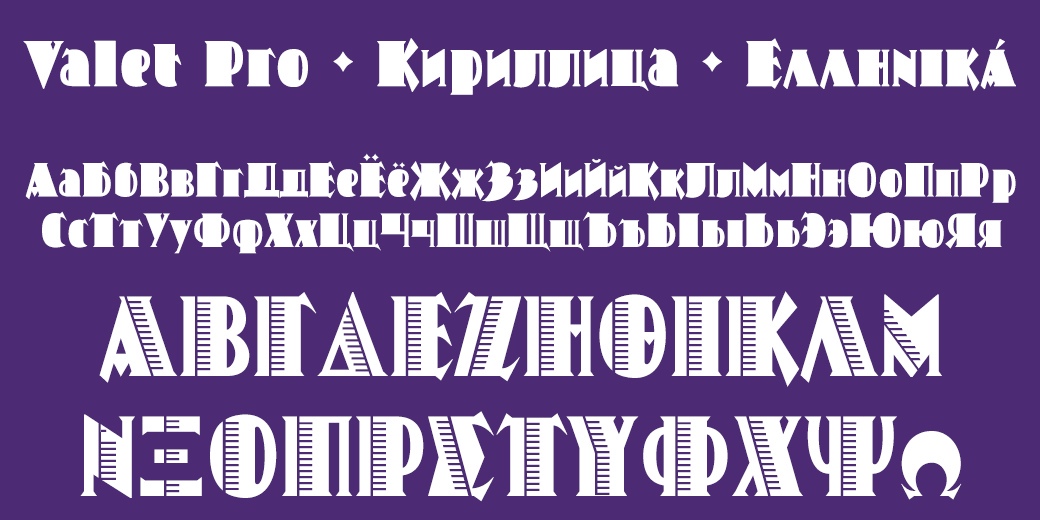
Valet Pro Font
Valet Pro Font is perfect for luxury hotel branding, upscale service company logos, premium hospitality marketing, concierge service signage, five-star restaurant menus, high-end automotive dealership materials, exclusive club memberships, professional service presentations, boutique business cards, and sophisticated corporate communications.
Valet Pro Font creates excitement because it embodies professional excellence and refined service quality through its polished letterforms and sophisticated character structure. The font's elegant design instantly communicates trustworthiness and premium service standards, making any brand appear established and reliable. Its carefully balanced proportions and refined details create an atmosphere of exclusivity and attention to detail that resonates with discerning clientele who expect superior service experiences.
This distinguished typeface represents the pinnacle of professional typography for service-oriented businesses. Valet Pro Font Free Download offers entrepreneurs and established companies access to premium-quality letterforms that convey competence and reliability. The font's clean lines and professional appearance make it ideal for businesses that pride themselves on exceptional service delivery and customer satisfaction. Whether you're creating marketing materials for hospitality services, designing corporate presentations, developing brand identities for luxury services, or crafting professional correspondence, this font establishes immediate credibility and trust. Its excellent readability across all media ensures clear communication while the sophisticated design adds an element of refinement that sets brands apart from competitors. The font performs exceptionally well in both formal business documents and creative marketing applications. Service professionals appreciate the font's ability to convey expertise and attention to detail, qualities that are essential for building lasting client relationships. The comprehensive character set supports international business communications, making it suitable for global service companies and multicultural markets seeking to project professionalism and excellence.